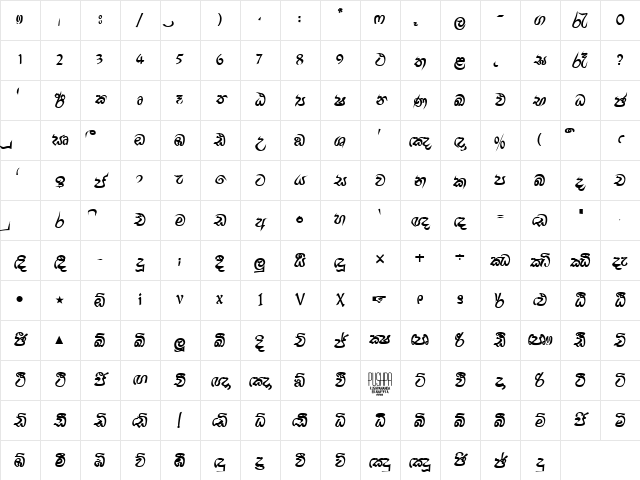
Ananda x Free Font
Ananda x
Ananda Family
Ananda x
Design Context for Ananda
Ananda is a composed and adaptable typeface that performs quietly and consistently across a wide range of design contexts.